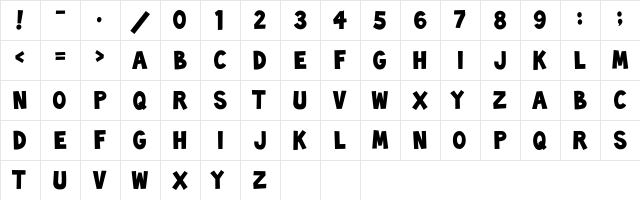
Toonish Regular
Foundry: Tom Burns
Designer: Tom Burns
Design Context for Toonish
Toonish is a composed and adaptable typeface that performs quietly and consistently across a wide range of design contexts.